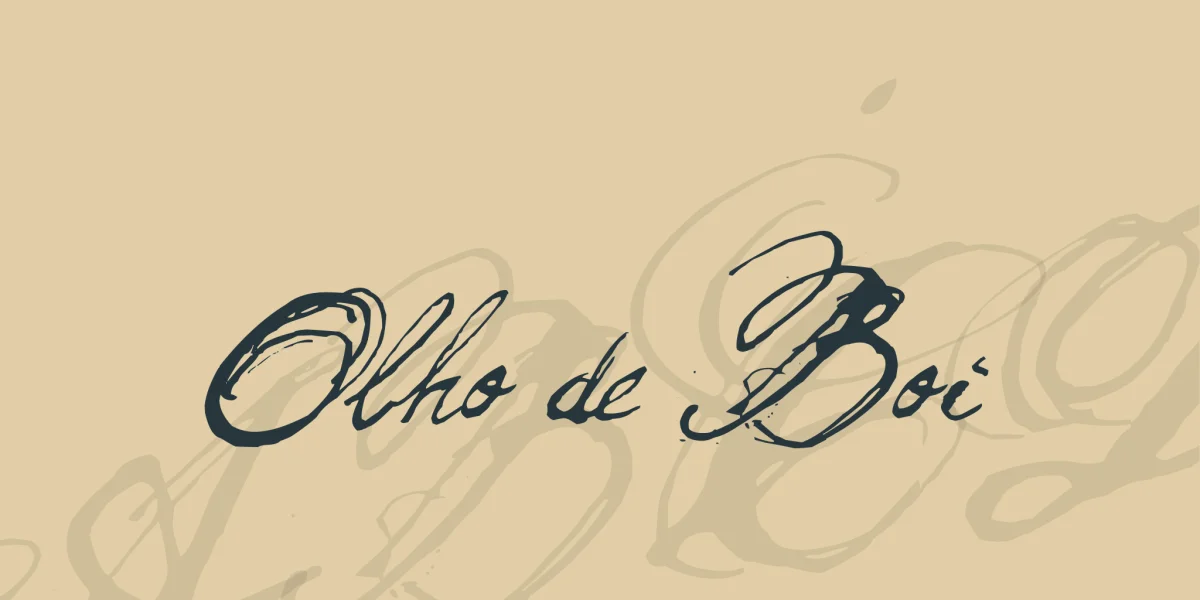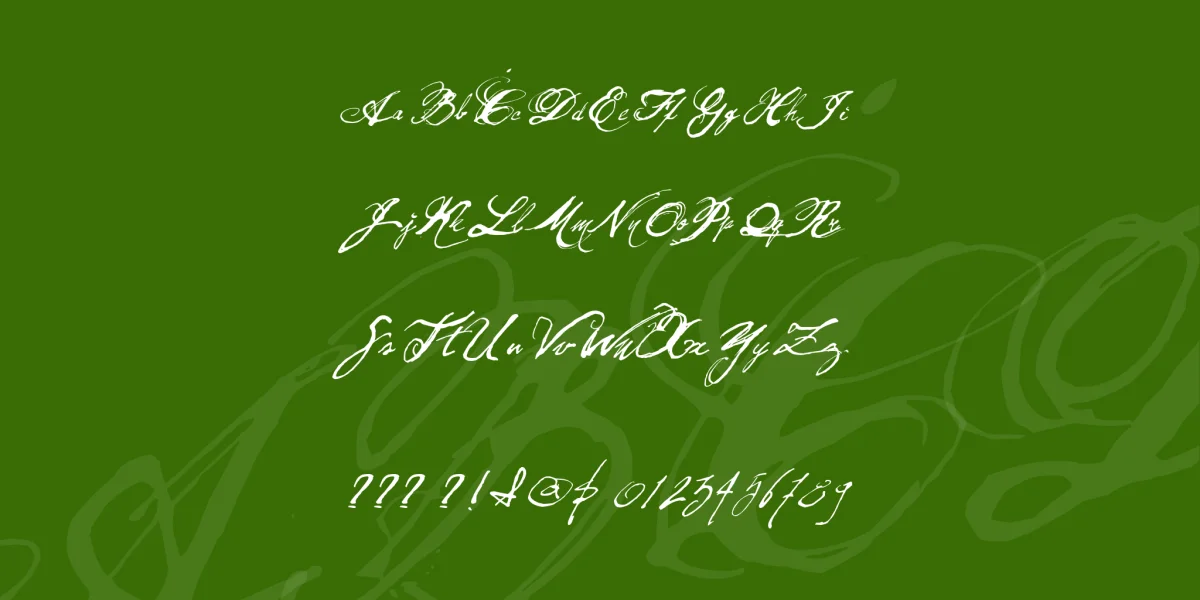
Olho de boi is a grunge type of font. The sizes of the letters and weights are assymetrical. It is a proprosal for applying old fashioned calligraphy to your document. The essence of this font is to remind you of the many immigrants transporting themselves into new surroundings and struggling with a hard life.
Olho de boi is a font inspired by the first brazilian postage stamp released on august 1, 1843.
*This drawing i made with ink pen into a train.